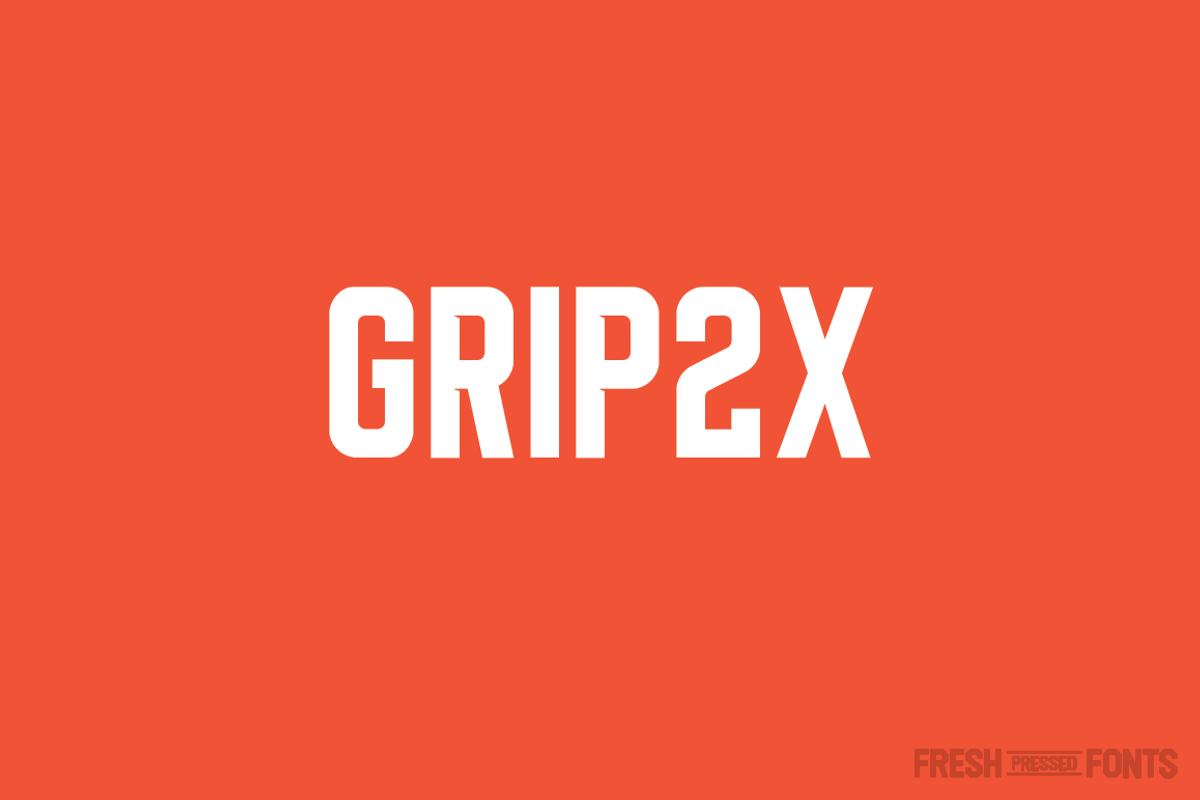
Grip2X | Regular + Oblique Free Download is a bold, modern sans-serif font that brings strength and versatility to your designs. Featuring both regular and oblique styles, Grip2X is perfect for headlines, logos, branding, posters, and any project that needs a strong and contemporary touch.
The regular style offers clean, geometric lines that are perfect for professional and minimalist designs, while the oblique style adds a sense of movement and dynamism, making it ideal for creative projects or promotional materials.